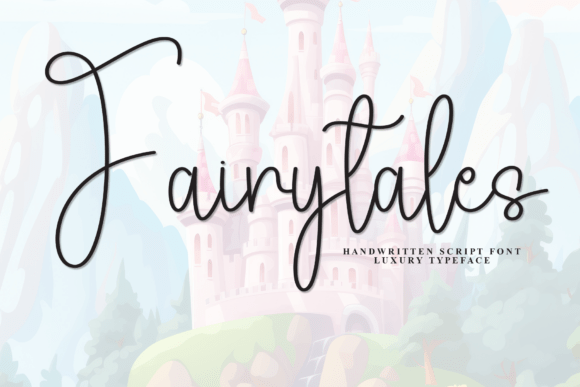
Discover the Magic of Fairytales Font
Have you ever found yourself mesmerized by the beauty of a handwritten note or a vintage book? The way the words seem to dance across the page, with every stroke and curve telling a story of its own? As a designer, I’m sure you’ve experienced that ‘aha’ moment when you stumble upon a font that captures the essence of your creative vision. For me, that moment came when I discovered the enchanting Fairytales Font.
This elegant script font is more than just a pretty face – it’s a tool that can elevate your designs to new heights. With its fluid curves and carefully crafted letterforms, Fairytales Font adds a touch of sophistication and refinement to any project. Whether you’re working on a logo, invitation, or social media graphic, this font is sure to leave a lasting impression. As a valuable addition to any designer’s toolkit, Fairytales Font is a must-have for anyone looking to add a little magic to their designs.
Fairytales Font Key Features
- Unique Characteristics: Features a whimsical and romantic design, with intricate details and ornaments, perfect for fairy tale-inspired designs.
Fairytales Font Review
Overall, I think the Fairytales Font has some lovely qualities that make it perfect for certain design projects. ✨ The font’s whimsical and romantic feel is sure to capture the attention of anyone who sees it. The subtle flair on the ends of the letters adds a touch of elegance that’s hard to find in other fonts.
One of the standout features of this font is its versatility. ✨ It can be used for a wide range of projects, from children’s book covers to wedding invitations. The font’s beauty is not limited to a single style or theme, making it a great addition to any designer’s toolkit.
However, there are a few limitations to keep in mind. ⚠️ The font can be a bit difficult to read at smaller sizes, which may be a problem for certain applications. Additionally, the font’s flair can sometimes make it look cluttered or overwhelming if not used carefully.
- Whimsical and romantic feel
- Subtle flair on the ends of the letters
- Versatile and suitable for various projects
- May be difficult to read at smaller sizes
- Can look cluttered or overwhelming if not used carefully
Use the Fairytale font for whimsical and magical designs, such as children’s book illustrations, fairy-themed invitations, or fantasy novel covers. Experiment with different font sizes and colors to achieve a unique look.